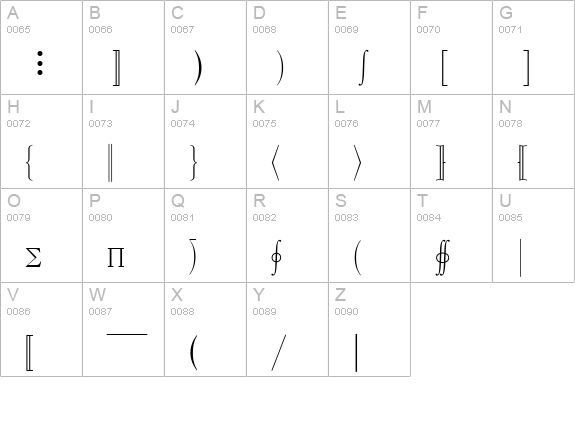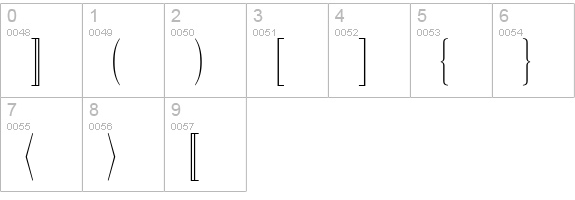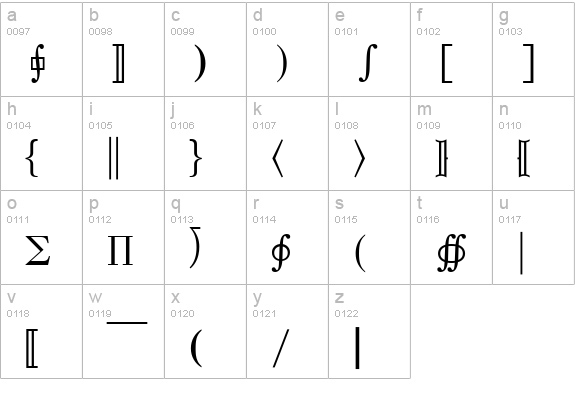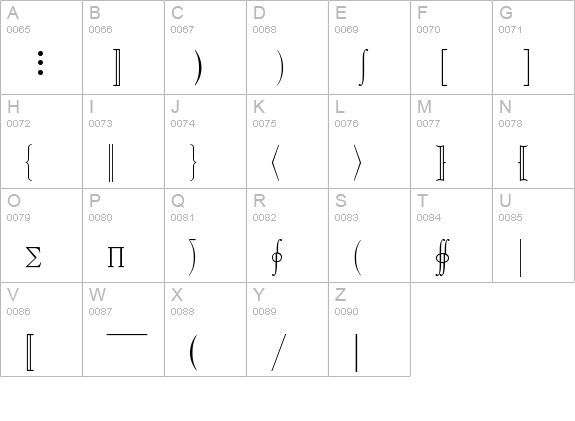
Introducing Quanta Pi Five SSi, a captivating font that effortlessly combines modern elegance with a touch of sophistication. This stunning typeface is perfect for those seeking a versatile and eye-catching design solution. With its sleek lines and precise curves, Quanta Pi Five SSi exudes a sense of refined style that is sure to leave a lasting impression. But what truly sets Quanta Pi Five SSi apart is its unique ability to captivate and engage across a wide range of mediums. Whether it's an attention-grabbing logo, a striking headline, or a captivating poster, this font effortlessly adapts to any project, adding a touch of professionalism and allure. And the best part? Quanta Pi Five SSi is absolutely free! That's right, this remarkable font is freely available to download at FontsMarket.com. Now, designers, creatives, and typography enthusiasts alike can access this exceptional font without any cost. This means that the possibilities for bringing your creative vision to life are endless. So, why wait? Embrace the power of Quanta Pi Five SSi and elevate your designs to new heights. With its stunning aesthetics and unparalleled versatility, this font is a must-have for anyone looking to make a bold statement. Download Quanta Pi Five SSi today and let your creativity soar!